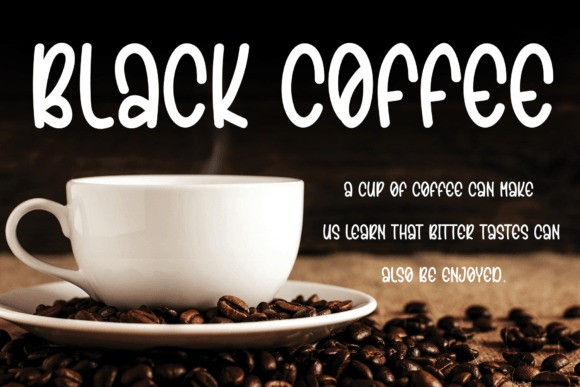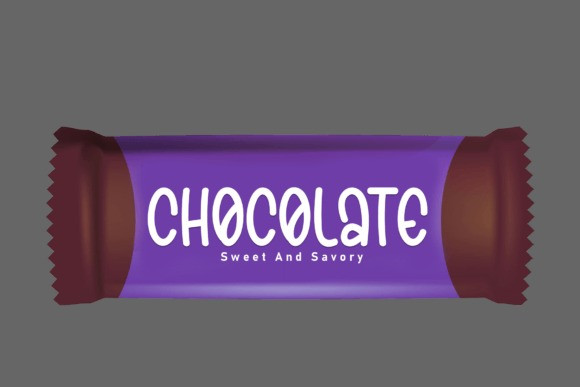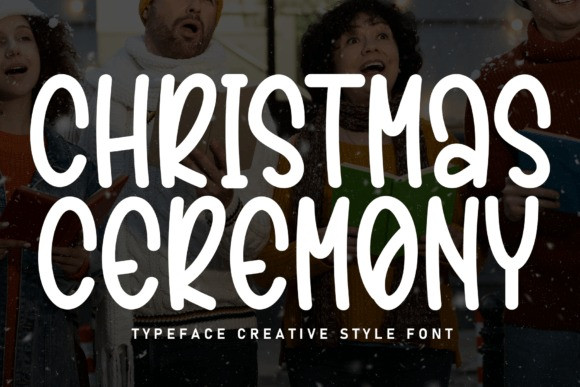
Christmas Ceremony Font
Christmas Ceremony Font is a sweet and friendly handwritten display font. Cute and fun, this font is ideal for writing wedding invitations, cards, or any other design that might need a fun touch!